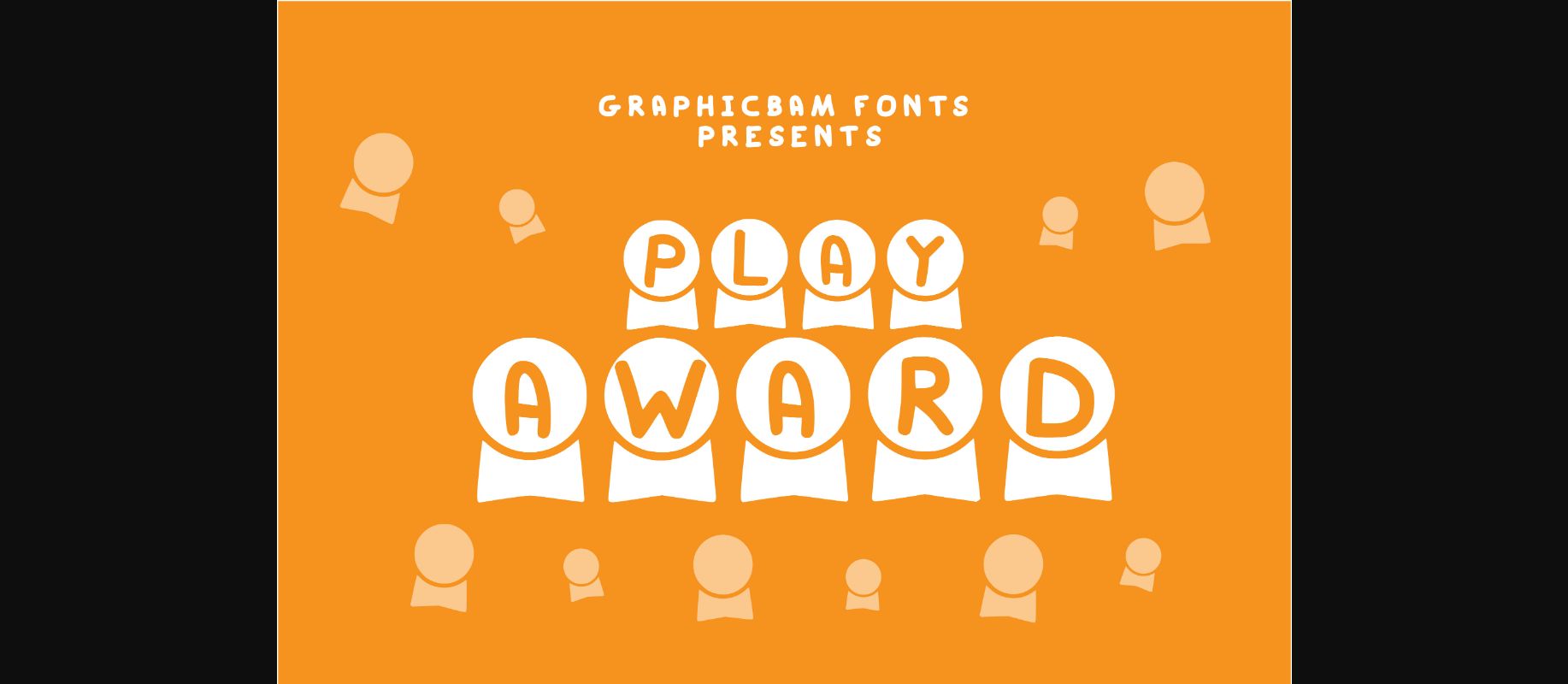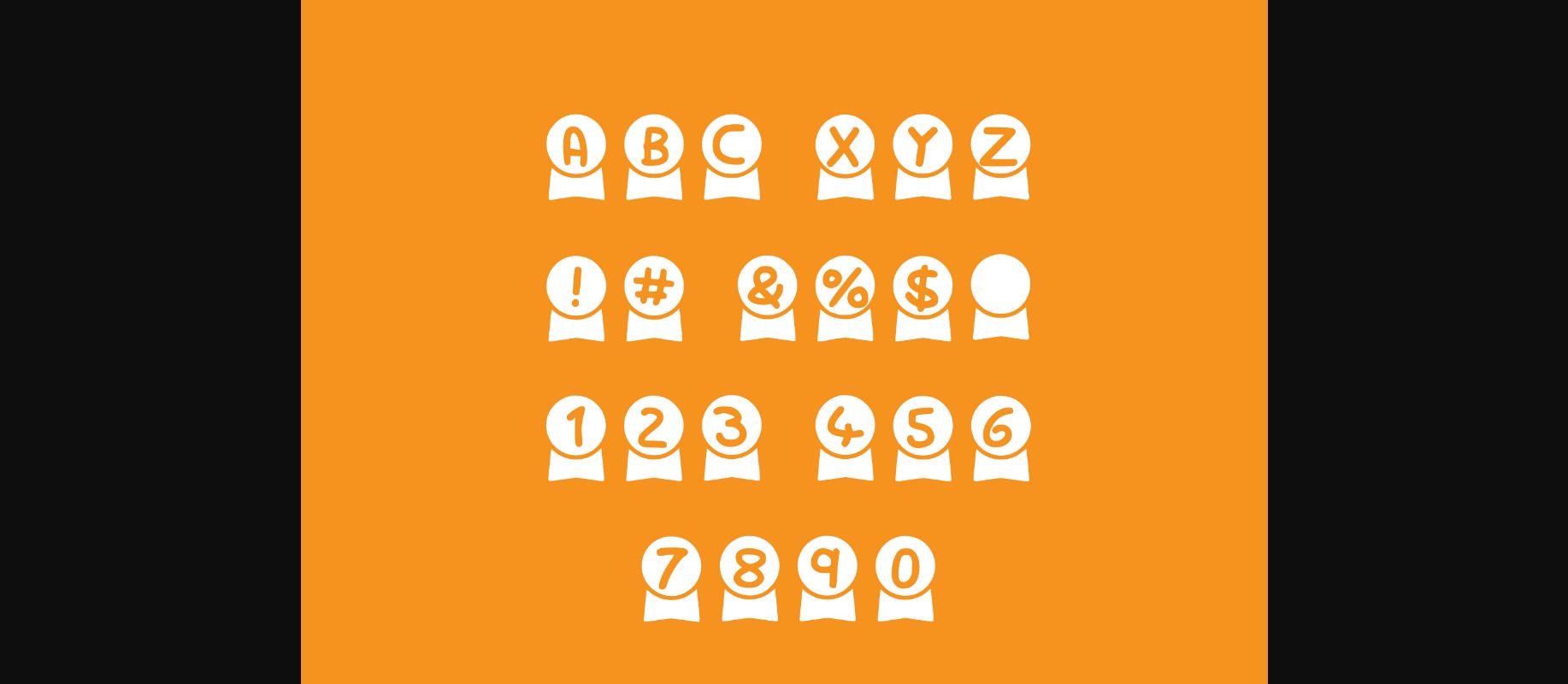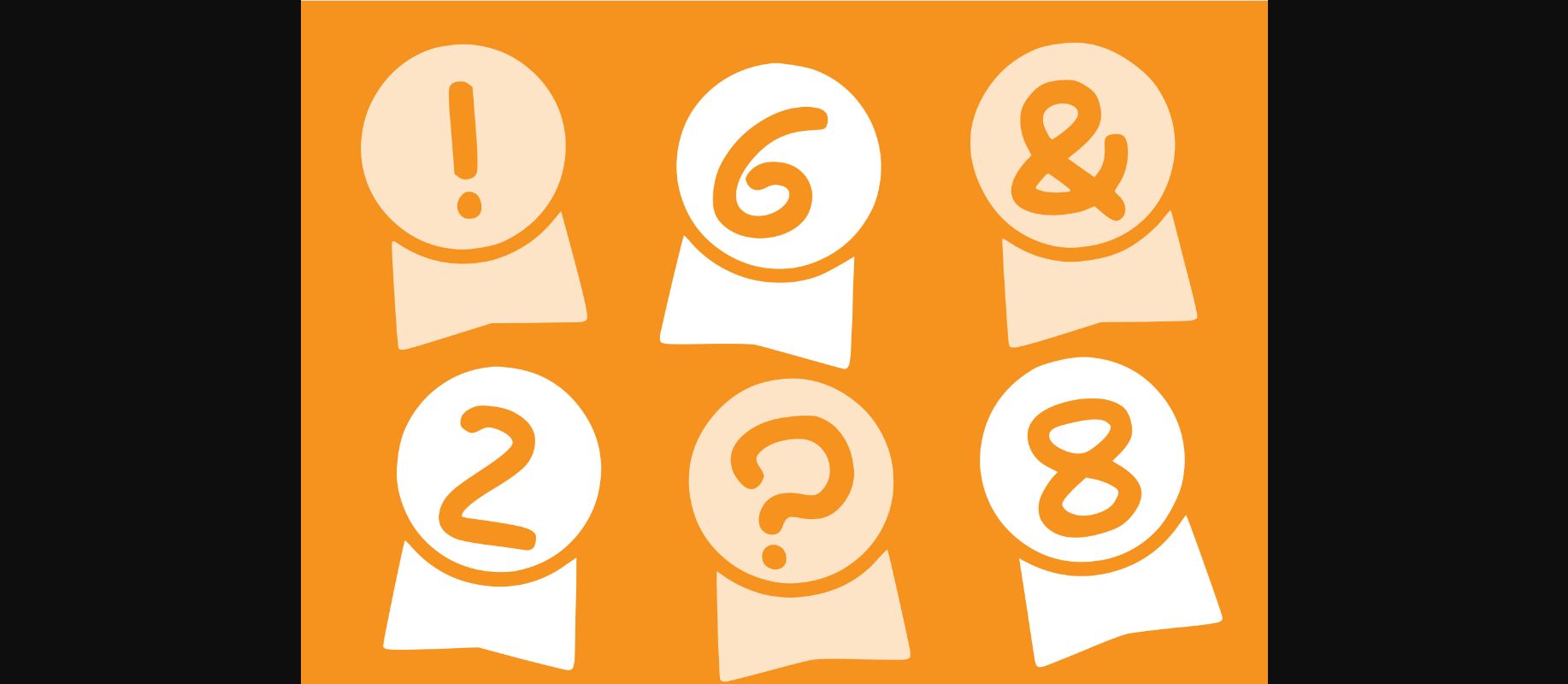
About Play Award Font
Play is a cool and casual decorative font. Whether you’re using it for crafts, digital design, presentations, or making greeting cards, this font has the potential to become your favorite go-to font, no matter the occasion!